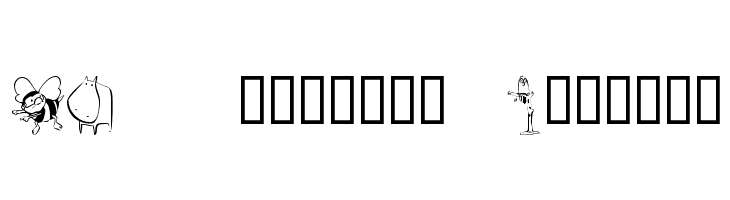
( Fonts by www.houseoflime.com )
Intricate floral and ornamental decorative font.
( Fonts by Rodrigo German - RASDESIGN )
Whimsical cartoon character font with playful, expressive figures.
( Fonts by Dieter Steffmann )
Ornate dingbat font with zodiac and seasonal illustrations.